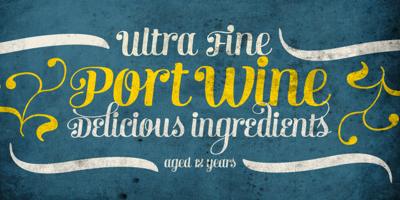
Vaclice Script Font Free Download
Vaclice Script Font Free Download is a stylish and elegant script typeface that brings a modern handwritten touch to your creative projects. With its flowing curves and smooth strokes, Vaclice is perfect for wedding invitations, branding, product packaging, Instagram quotes, and anything that calls for a chic and feminine vibe.
Designed to reflect the natural movement of a brush pen, this font delivers personality and sophistication in every character. It’s both graceful and expressive—ideal for adding a personal signature style to your designs without sacrificing readability.
The font includes upper and lowercase letters, numerals, punctuation, and multilingual support. It also comes with ligatures and stylistic alternates to help you customize your typography and create unique layouts effortlessly.